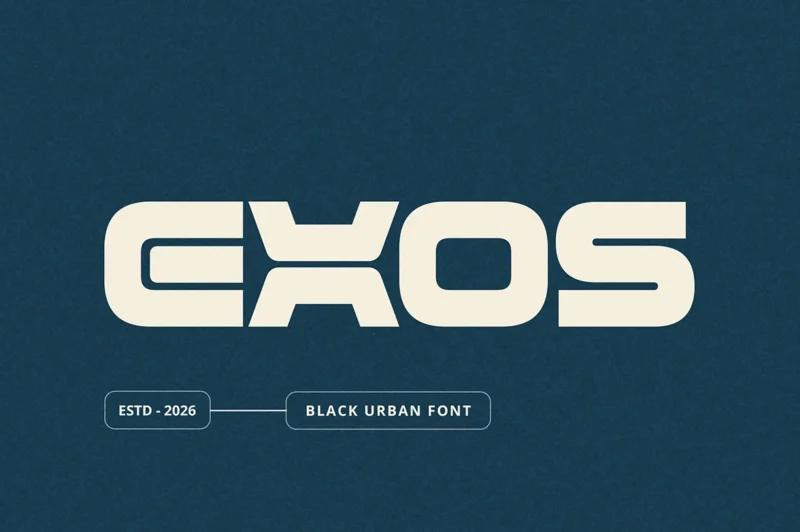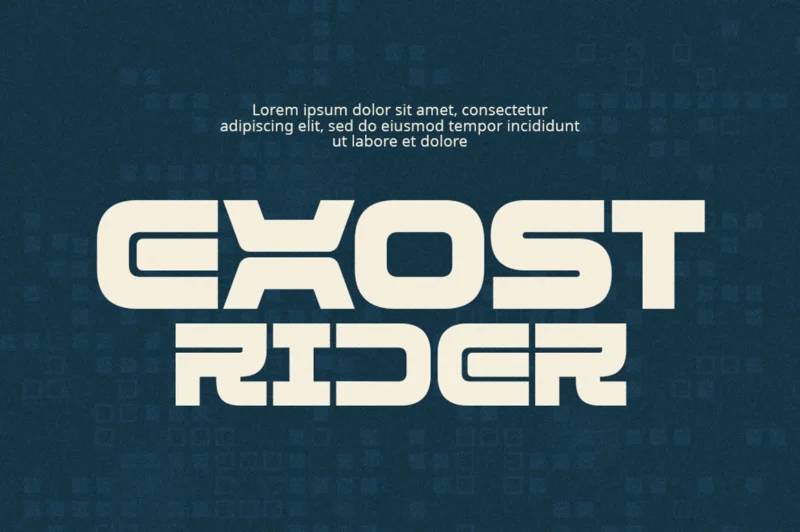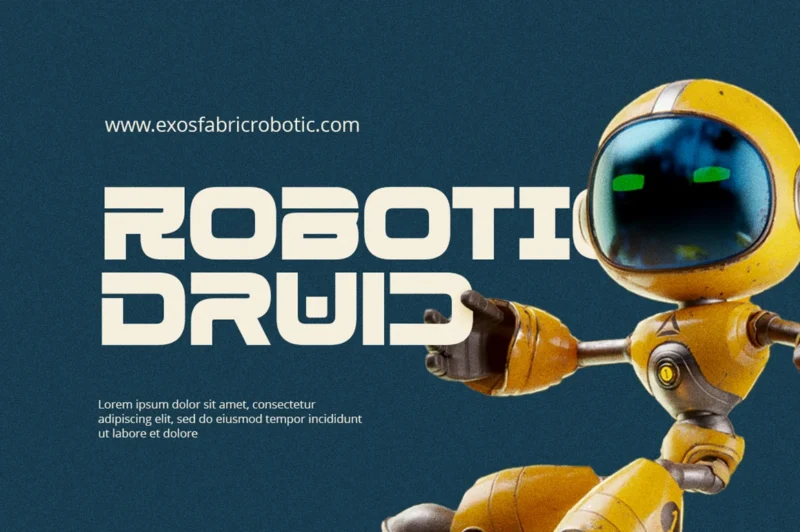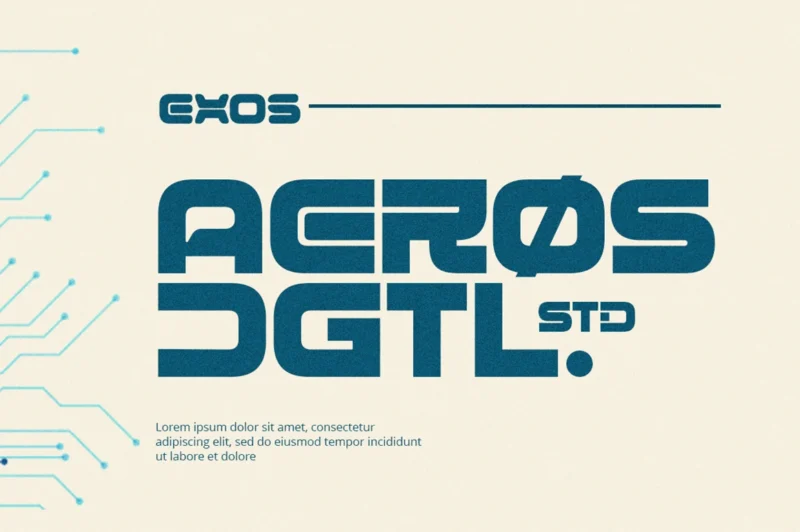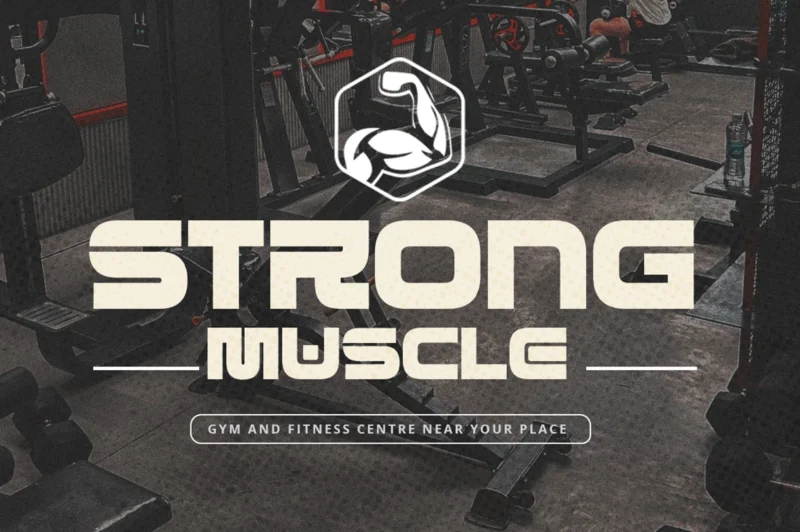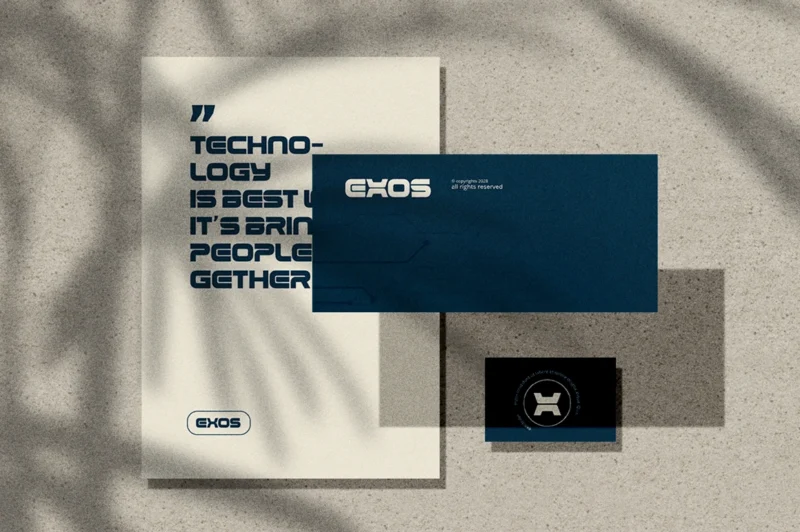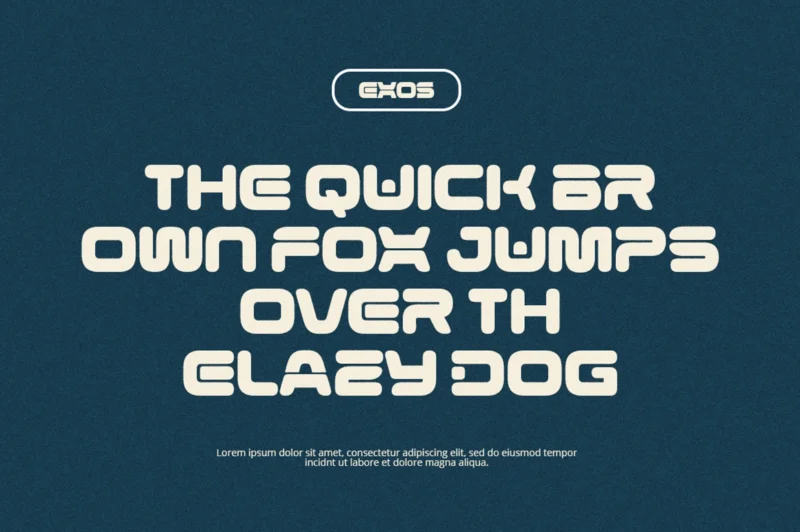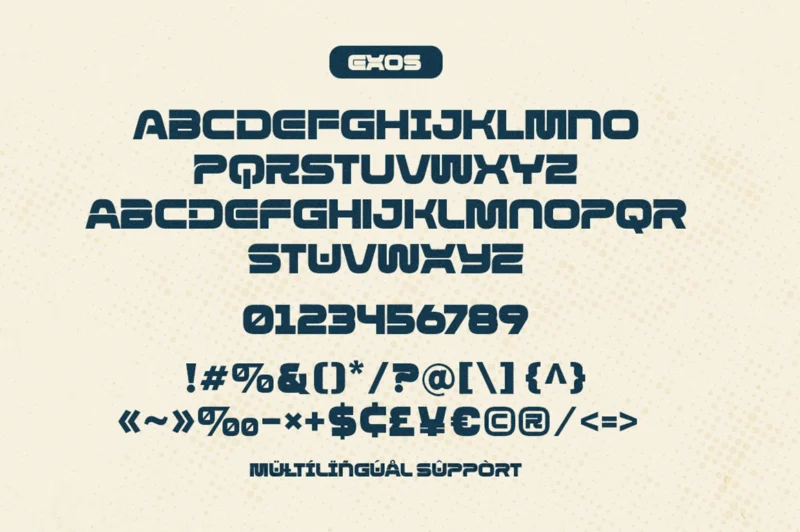
Exos Black Regular
Exos Black Rounded
Introducing Exos — a bold modern urban black sans serif typeface crafted entirely in all caps. Built with strong geometric shapes and a powerful contemporary attitude, Exos delivers a clean yet aggressive visual presence that instantly grabs attention. Its heavy letterforms and sleek structure make it perfect for streetwear branding, futuristic posters, gaming titles, music covers, sports graphics, logos, headlines, and impactful editorial designs. Exos combines modern minimalism with an urban edge, creating a typeface that feels confident, stylish, and energetic. Whether used for digital or print projects, this font brings a strong character and high visual impact to every design.
Features:
• Basic Latin Glyphs
• Black Sans Serif Font
• Ligatures & Alternates
• All Caps Letters
• Numeral and Punctuation
• Currencies
• Multilingual Support
Exos – Black Urban Font